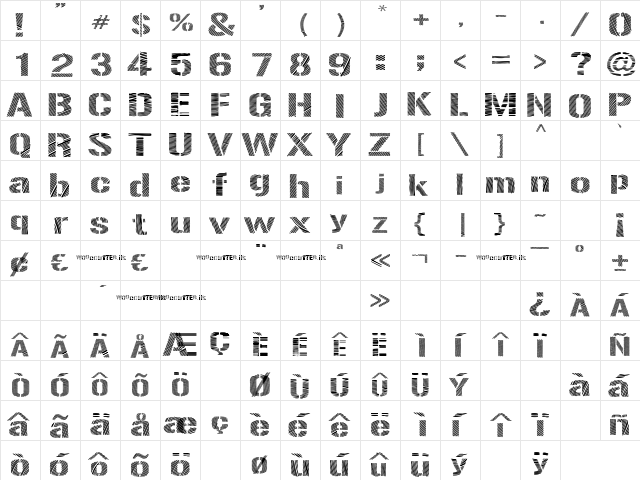
Woodcutter Optical Army Regular
Design Context for Woodcutter Optical Army Typeface
Woodcutter Optical Army draws on military and industrial lettering traditions, with forms that communicate strength and precision.
A strong choice for security brands, outdoor gear, and high-stakes visual communication.
Pro Tip: Try Woodcutter Optical Army in all-caps for the most authentic military signage feel. It pairs well with stark, minimal layouts and muted colour palettes.